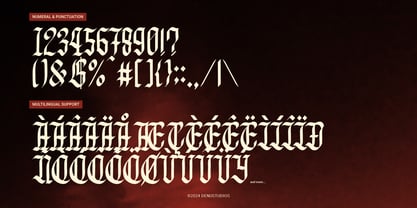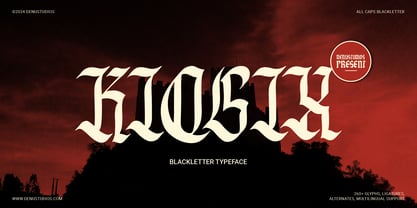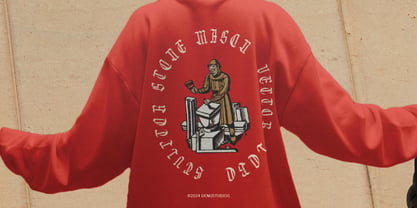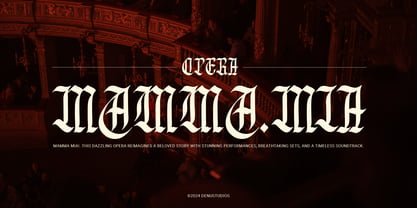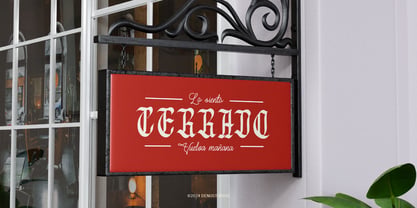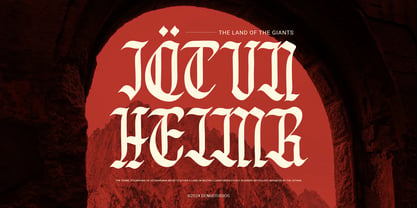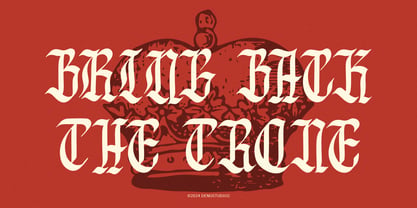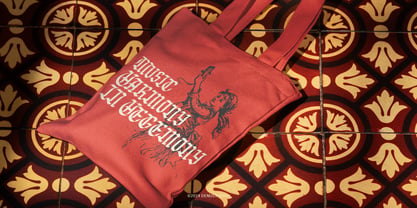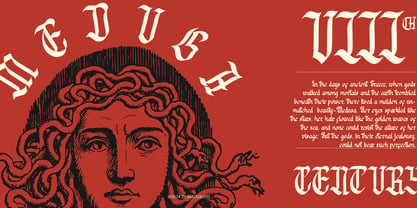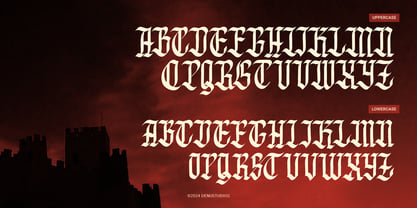
Kiosix
by Denustudio
The Kiosix Font Family was designed by Dede Nugraha and published by Denustudio. Kiosix contains 2 styles and family package options. More about this family
Kiosix | Blackletter Font, from Denustudios, suitable for any projects such as: logos, branding projects, homeware designs, product packaging, mugs, quotes, posters, shopping bags, t-shirts, book covers, name card, invitation cards, greeting cards, label, photography, watermark, special events, and all your other lovely projects that need a Blackletter Font taste.
• Regular and Italic
• Standard glyphs
• Alternate and Ligature
• Fonts include multilingual support